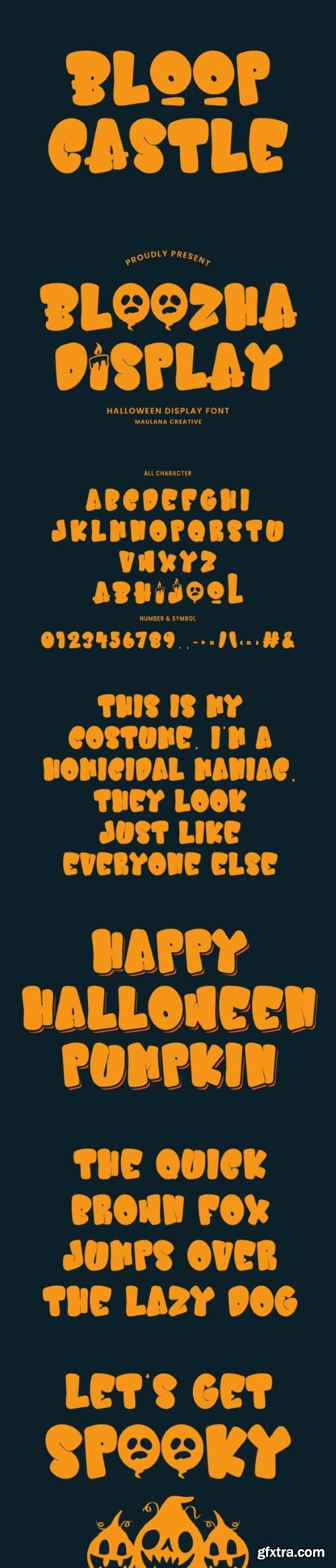
暴套(display)字体
Bloozha Display is a unique and interesting display font. A little bit quirky, this font looks incredibly adept on a wide variety of contexts!